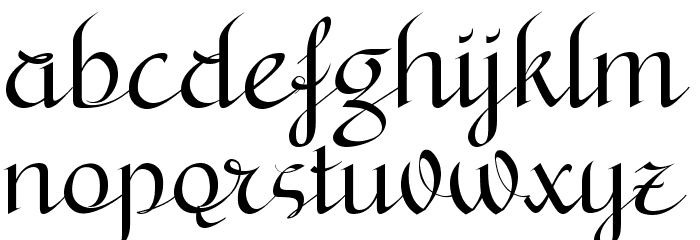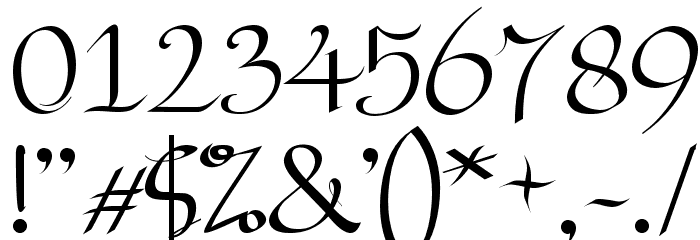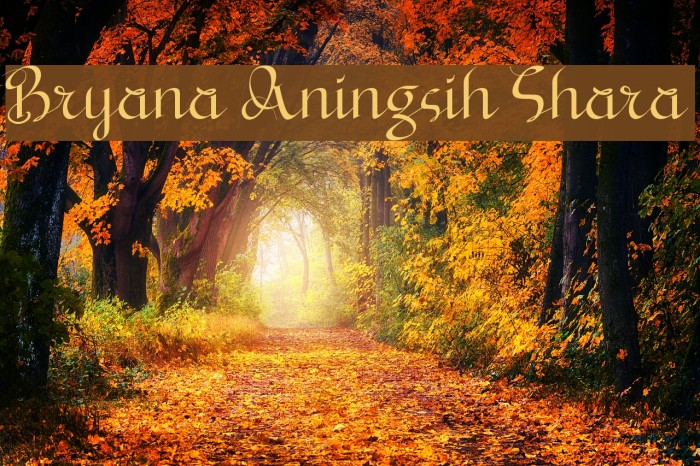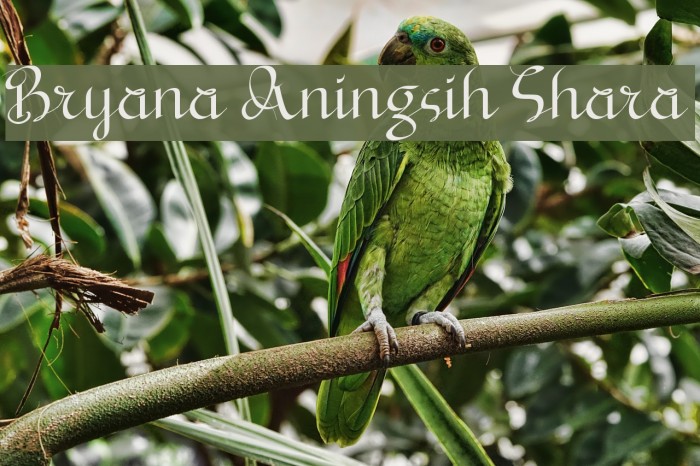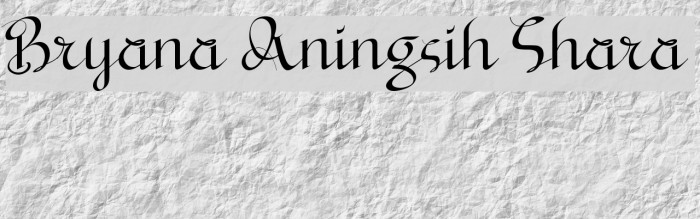
Bryana Aningsih Shara Font
This font exudes a sophisticated and elegant style, characterized by its flowing, cursive script. The uppercase letters are adorned with intricate swirls and loops, giving them a decorative flair. The lowercase letters maintain a consistent fluidity, with smooth transitions between strokes. The numerals are equally stylish, featuring graceful curves that complement the overall aesthetic. Special characters are designed with the same attention to detail, ensuring a cohesive look across all glyphs. This font is ideal for projects that require a touch of elegance and sophistication.
A sophisticated cursive script with decorative swirls and elegant curves.
- Proposed Projects: Wedding invitations, luxury branding, elegant packaging, and formal event programs.
- Overall Style: Elegant
- Use Case: Logos, Invitations, Branding